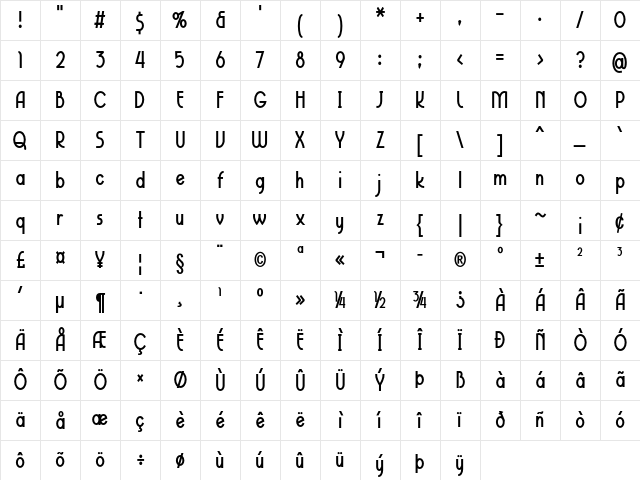
Eiffel Falls Condensed Bold
Style: Condensed Bold
Eiffel Falls Family
Eiffel Falls Condensed Bold
Design Context for Eiffel Falls
Eiffel Falls is a composed and adaptable typeface that performs quietly and consistently across a wide range of design contexts. Its bold stroke weight gives it real presence on the page. Its narrow stance lets it pack a punch even in space-constrained designs.